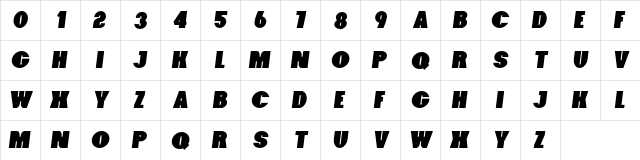
Foxxy Italic
Design Context for Foxxy Typeface
Foxxy is a composed and adaptable typeface that performs quietly and consistently across a wide range of design contexts. Its italic angle brings a sense of urgency and motion to the letterforms.
Pro Tip: Try Foxxy for annotation and caption copy alongside an upright companion — the contrast in angle creates a dynamic but ordered typographic system.